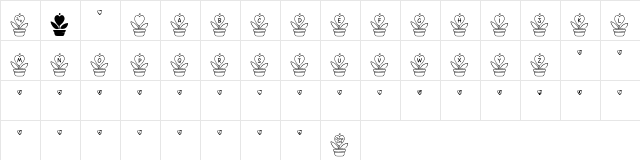
FL Love Plant Regular
Design Context for FL Love Plant Typeface
FL Love Plant is a composed and adaptable typeface that performs quietly and consistently across a wide range of design contexts.